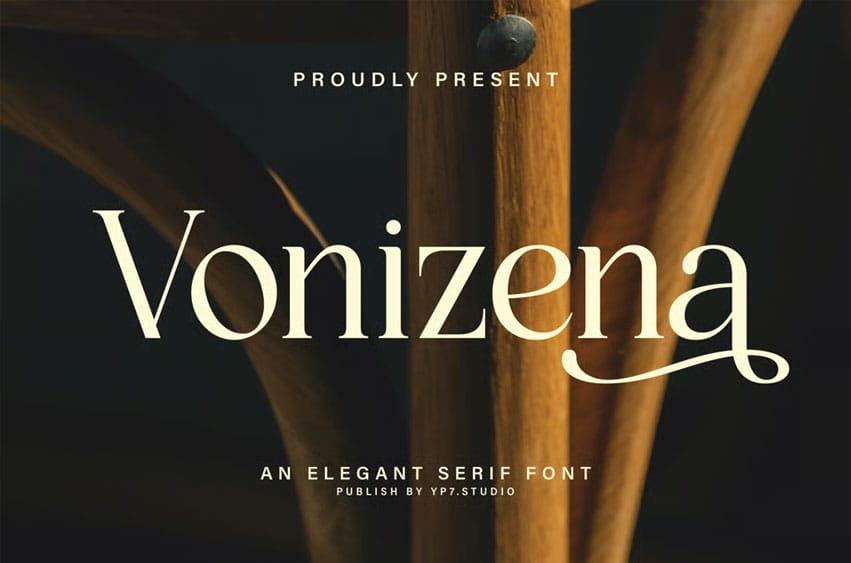
Vonzena Font Elegant Serif Font – Vonzena.
Most suitable for poster design, headlines, quote writing, pamphlets, greeting cards, product packaging, book covers, logotypes, album covers, etc.